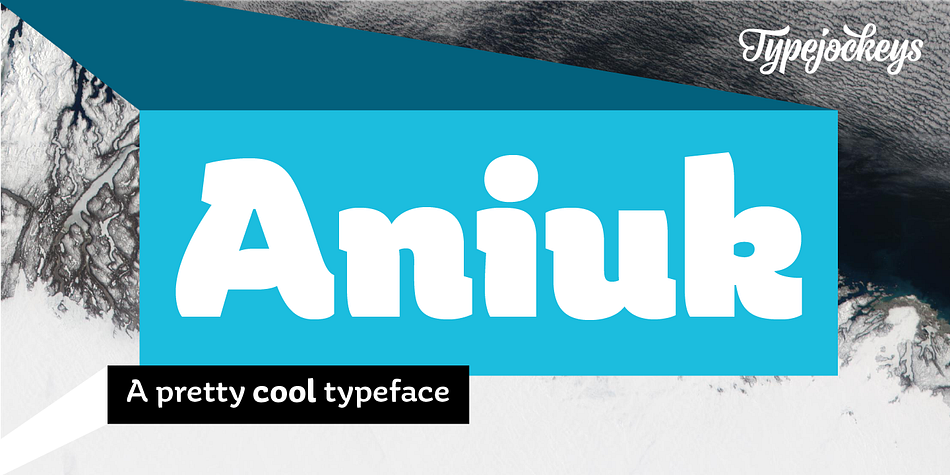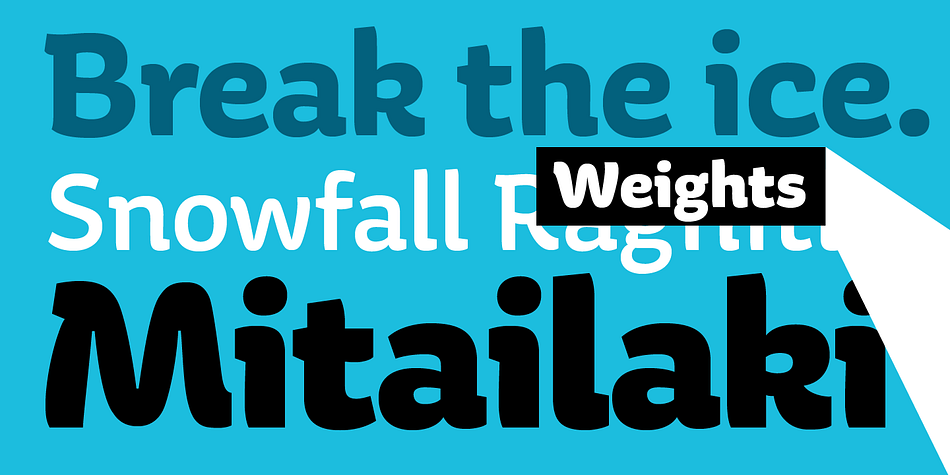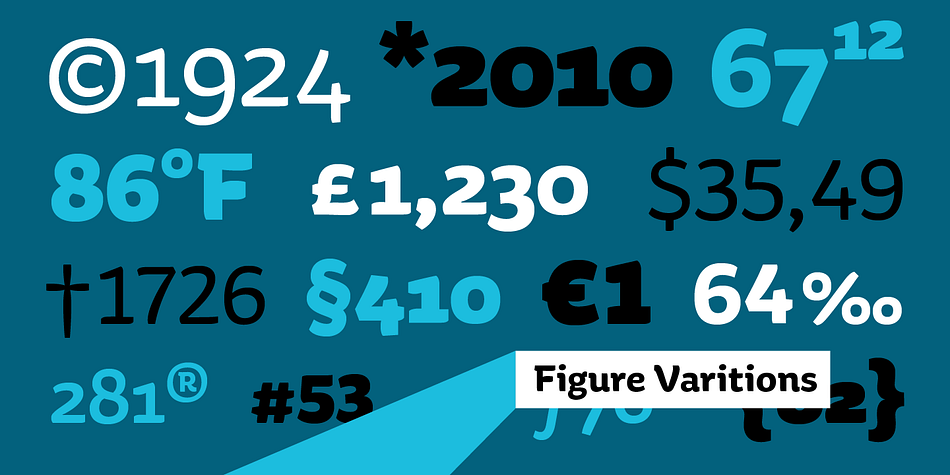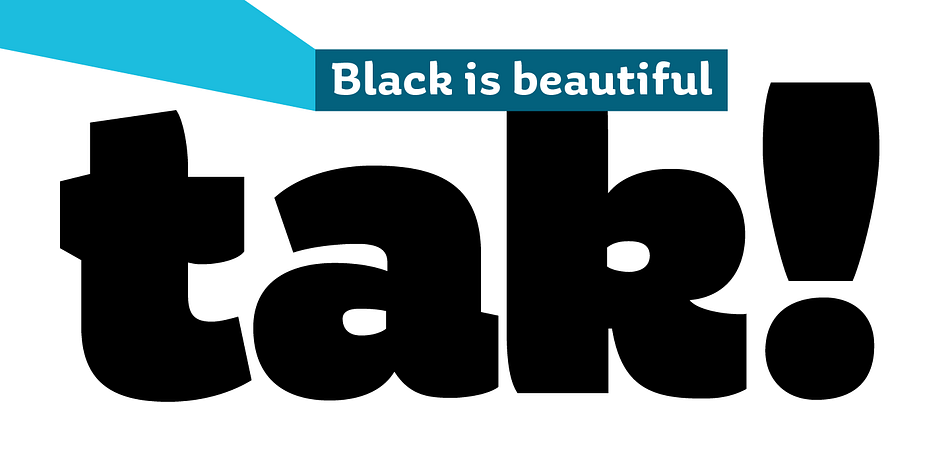
Designed by Thomas Gabriel, Aniuk is a sans serif font family. This typeface has five styles and was published by Typejockeys.
Aniuk is an original display type family from Typejockeys designed and optimized for the use in large sizes.
With five robust weights—Regular, Medium, Bold, Heavy and Black—it is perfectly suited for editorial, posters or logo design. Aniuk is lively, young, and probably a little crazy. However, there certainly is one thing that it is not: boring. A perfect balance of characteristic curves and edgy details make this a strong but playful typeface.
Be passionate, get emotional and express yourself with a variety of five different weights. A solid partner for your creative adventures.